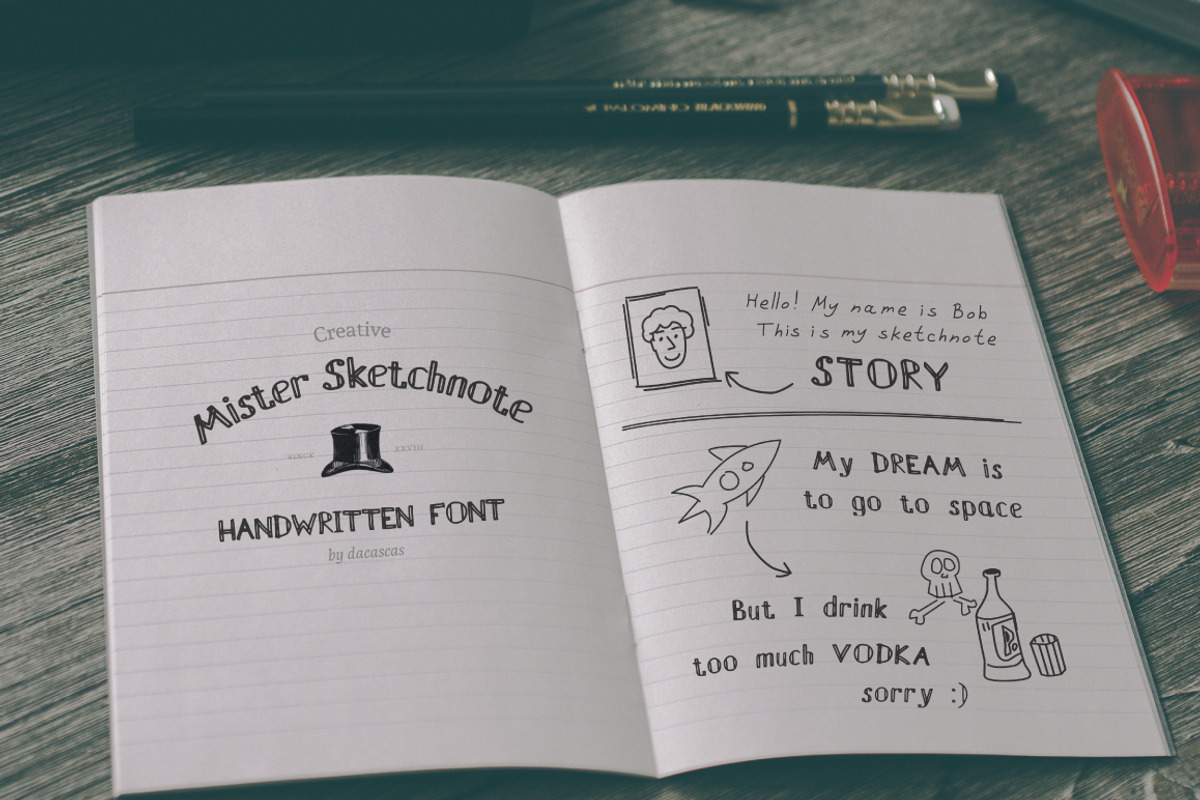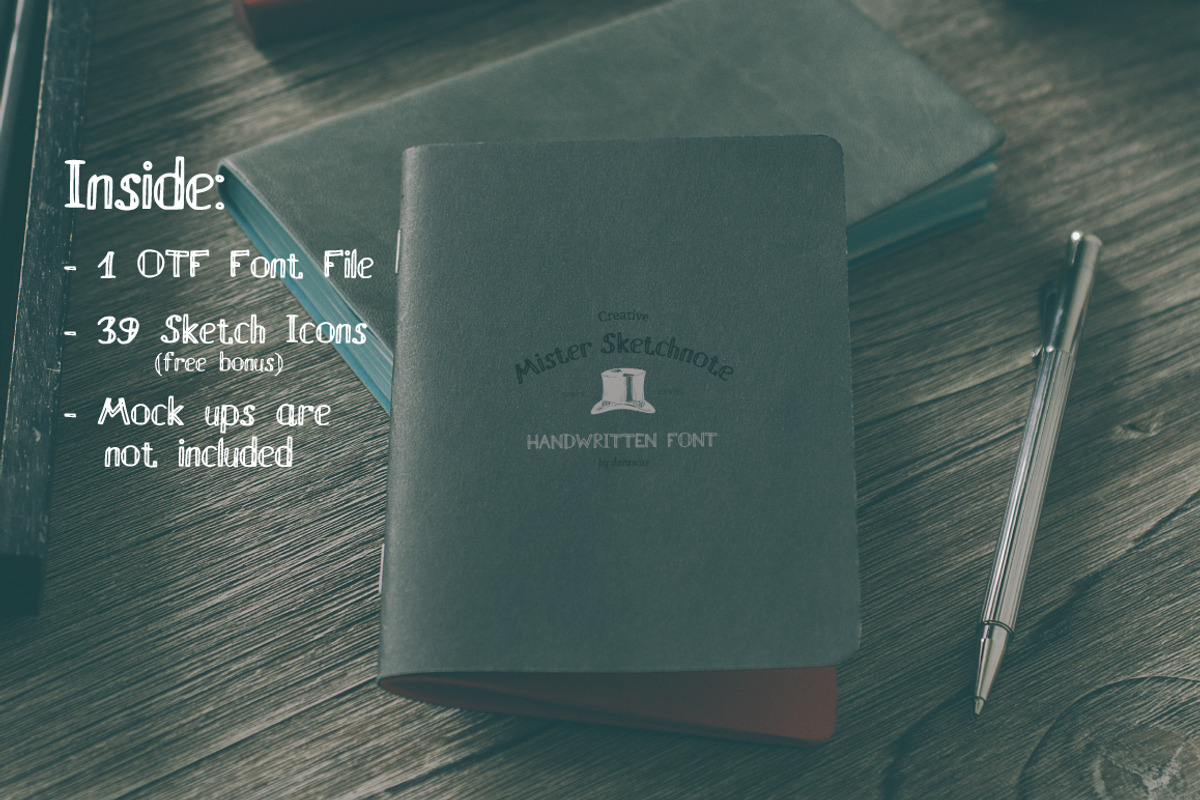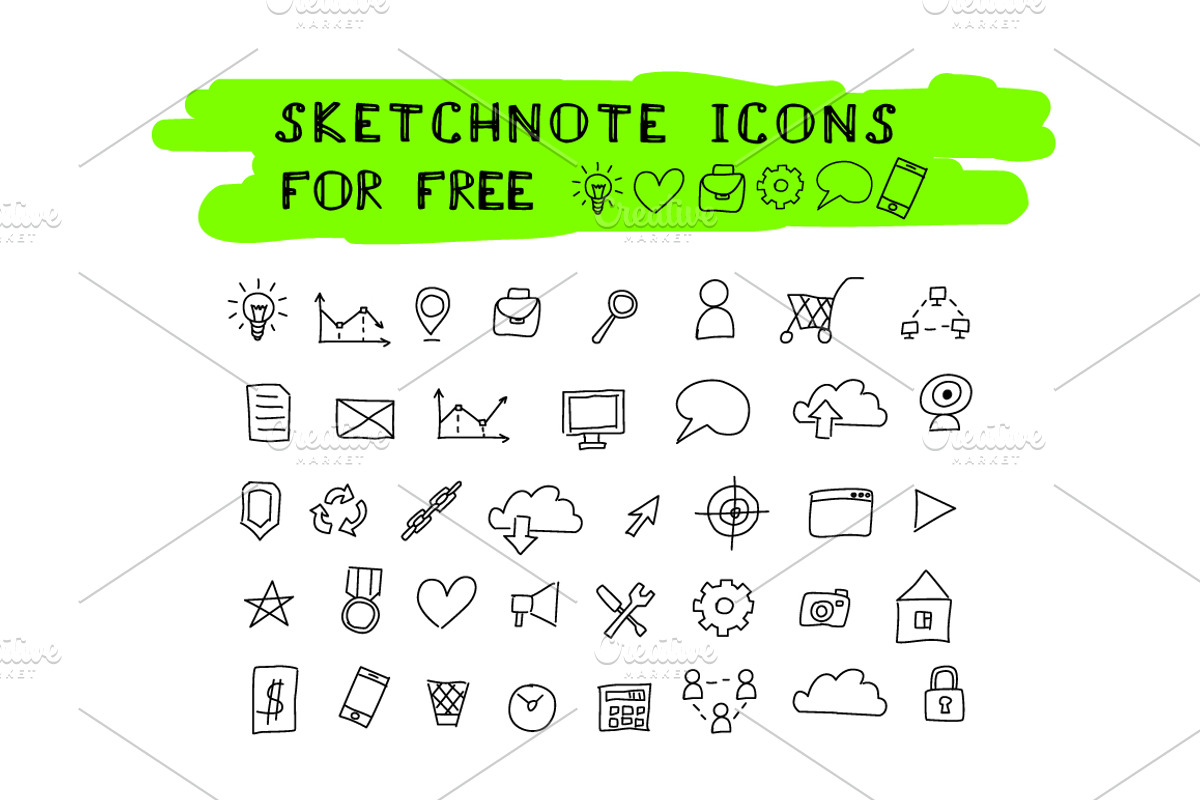
Mister Sketchnote Handwritten Font
Mister Sketchnote Handwritten Font by dacascas is a font selected for branding, posters, packaging, typography.
Why Mister Sketchnote Handwritten Font is worth a look
Mister Sketchnote Handwritten Font by dacascas fits naturally into Branding, posters, packaging, typography.